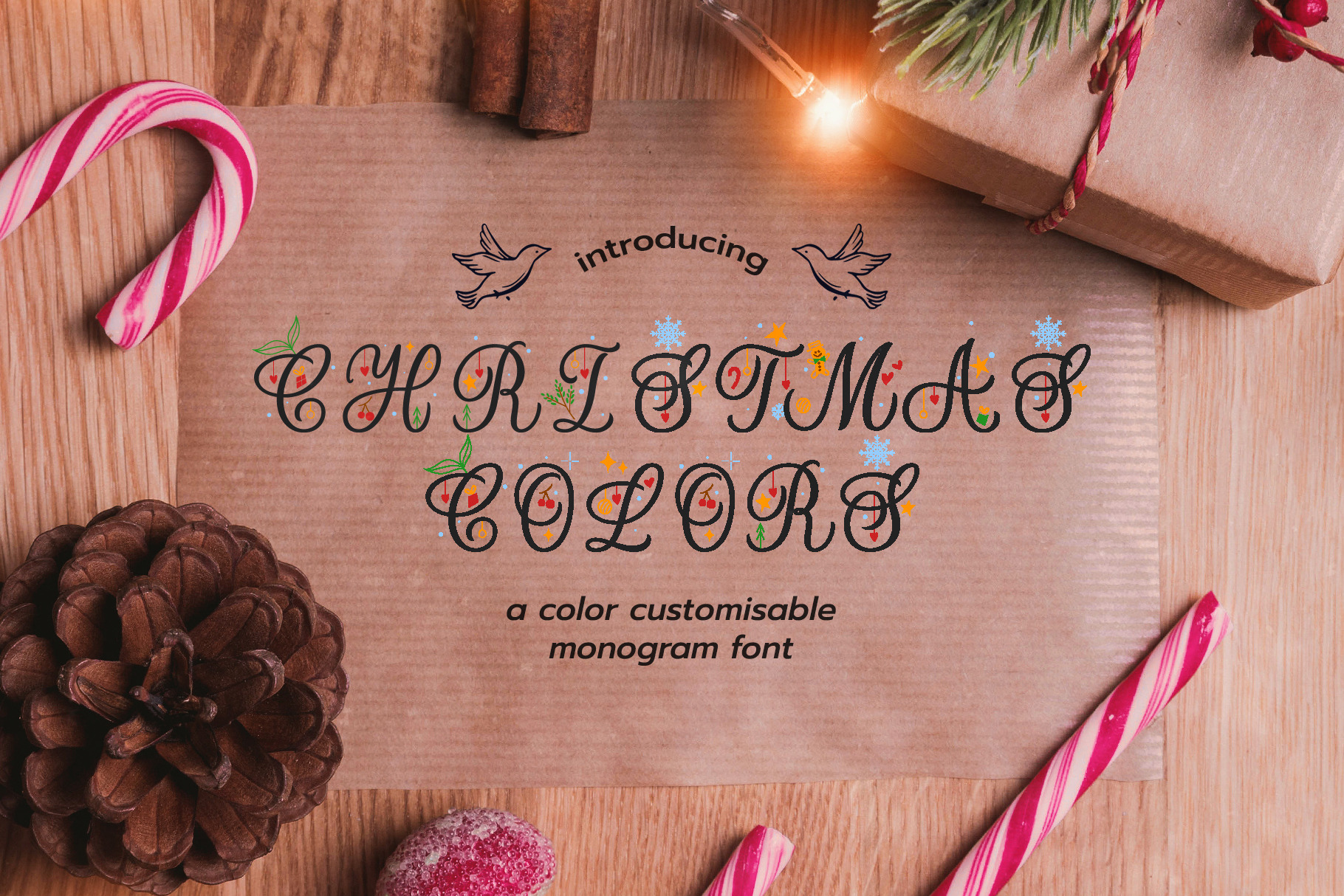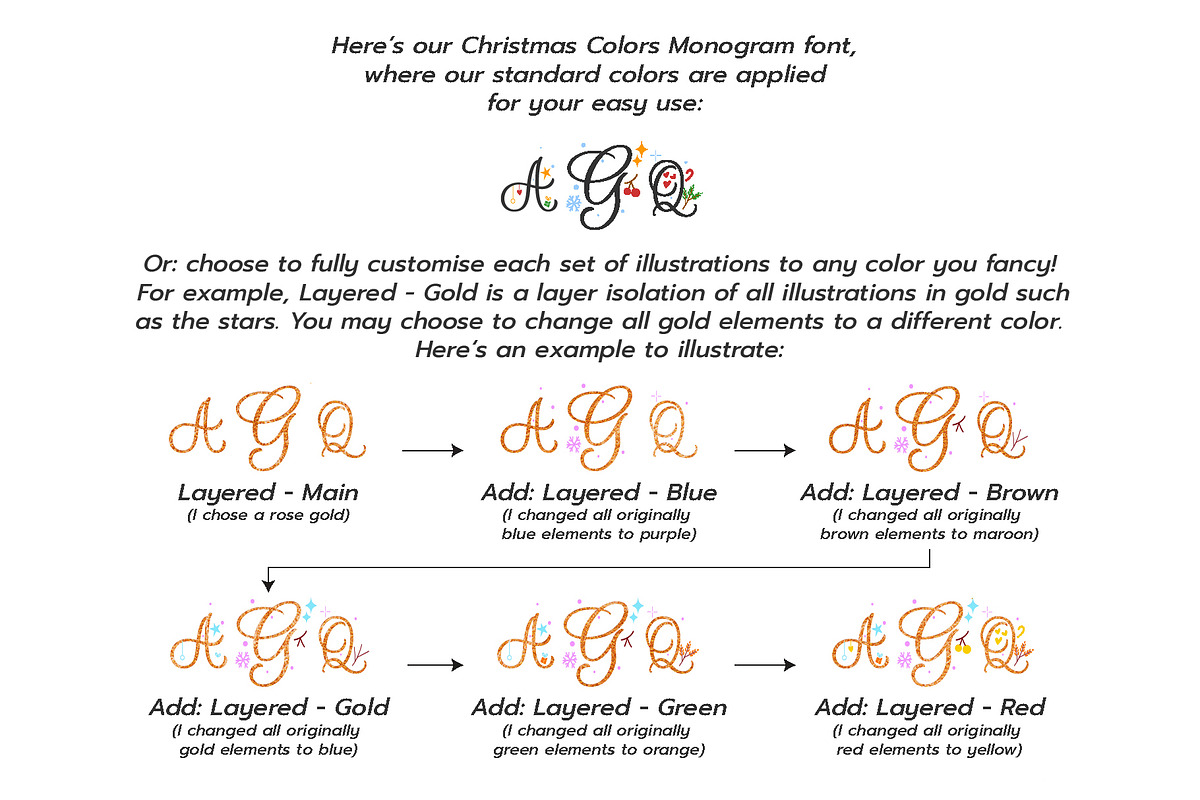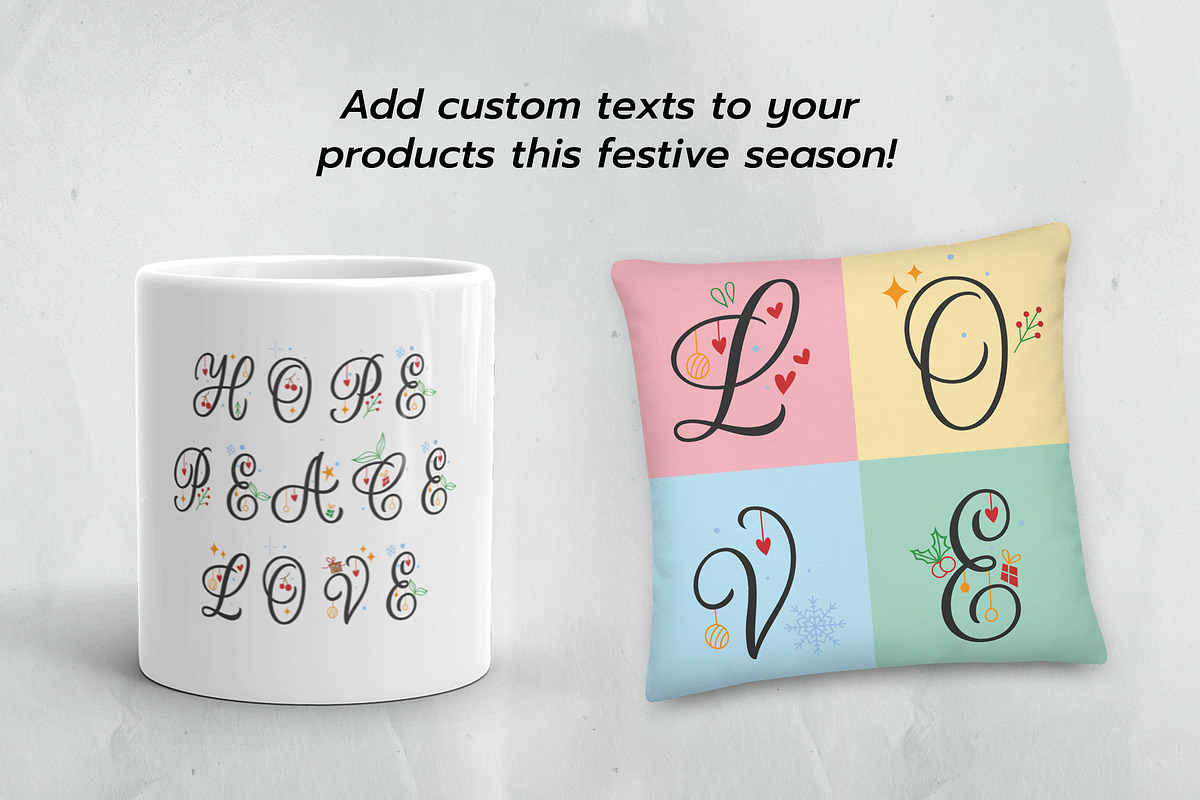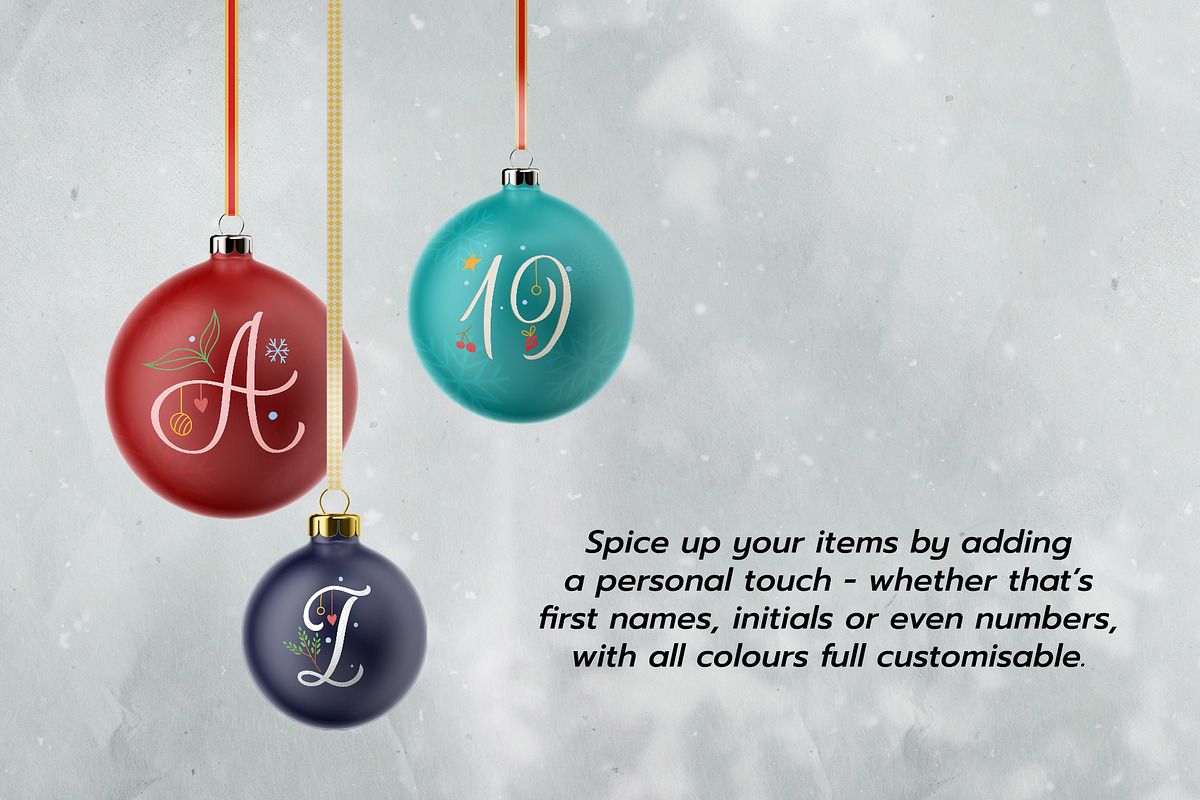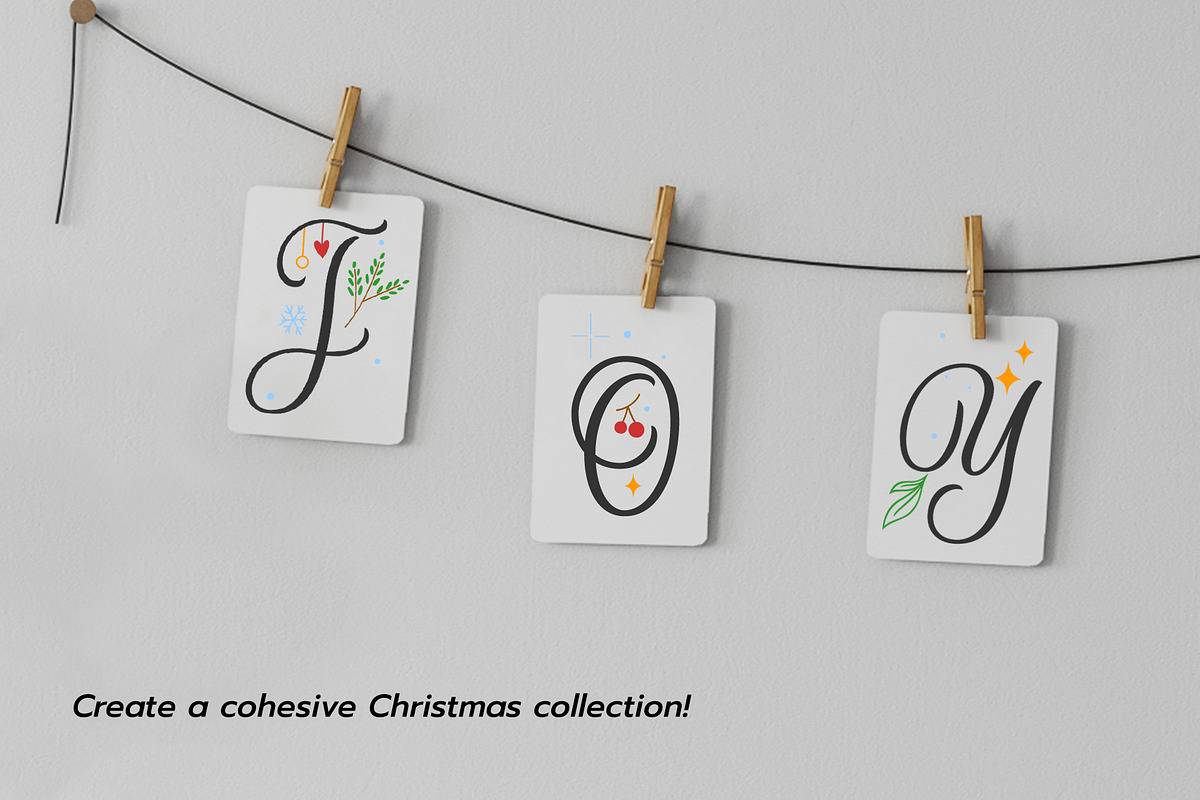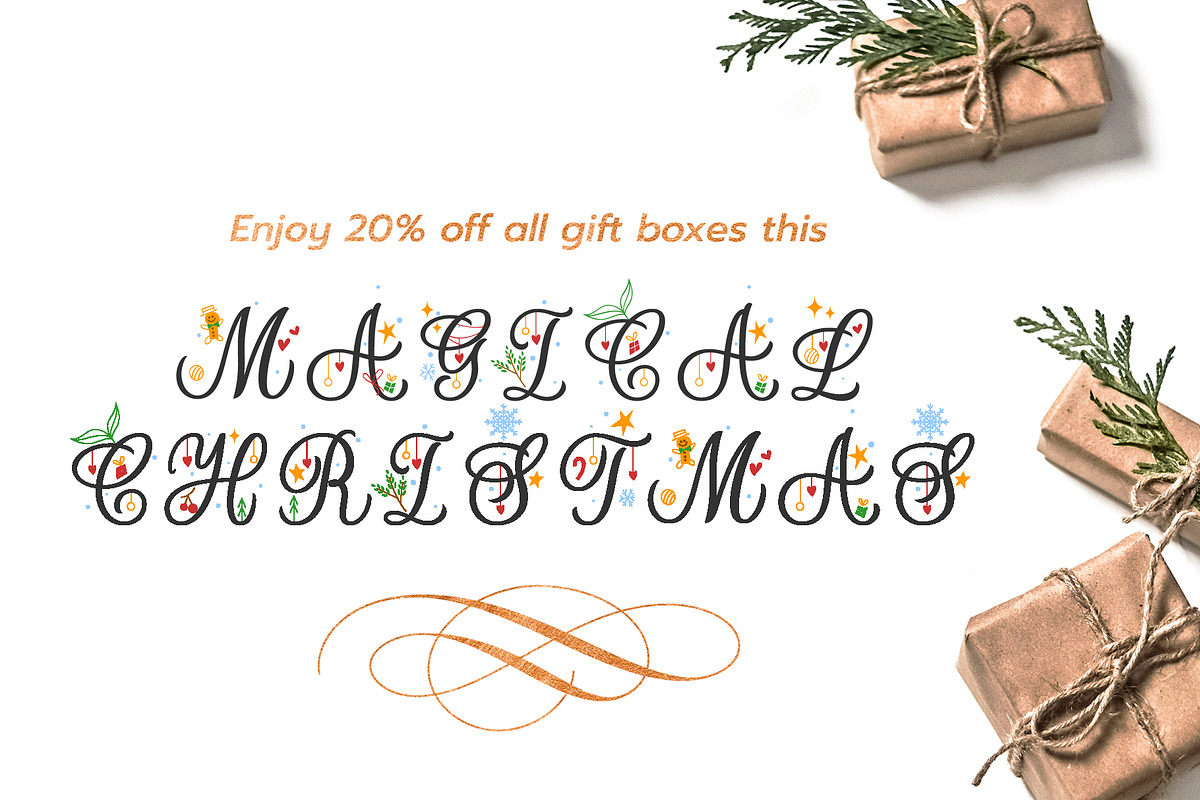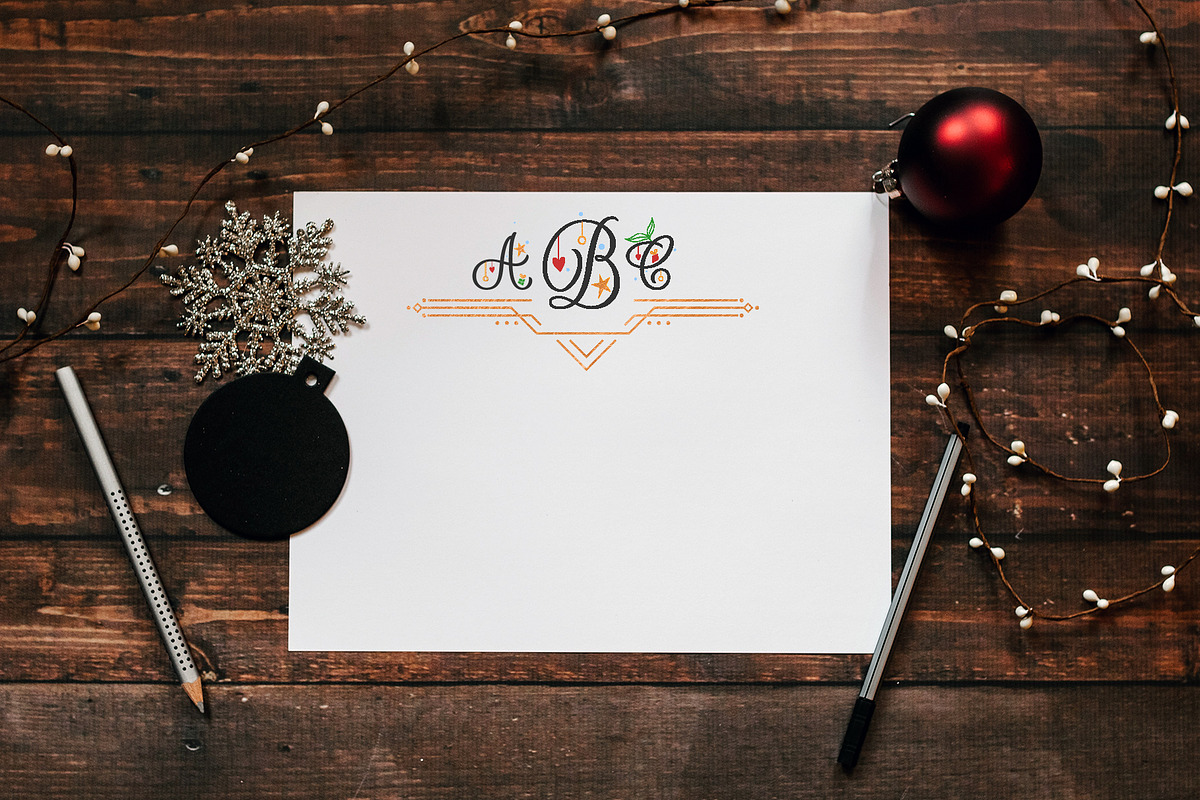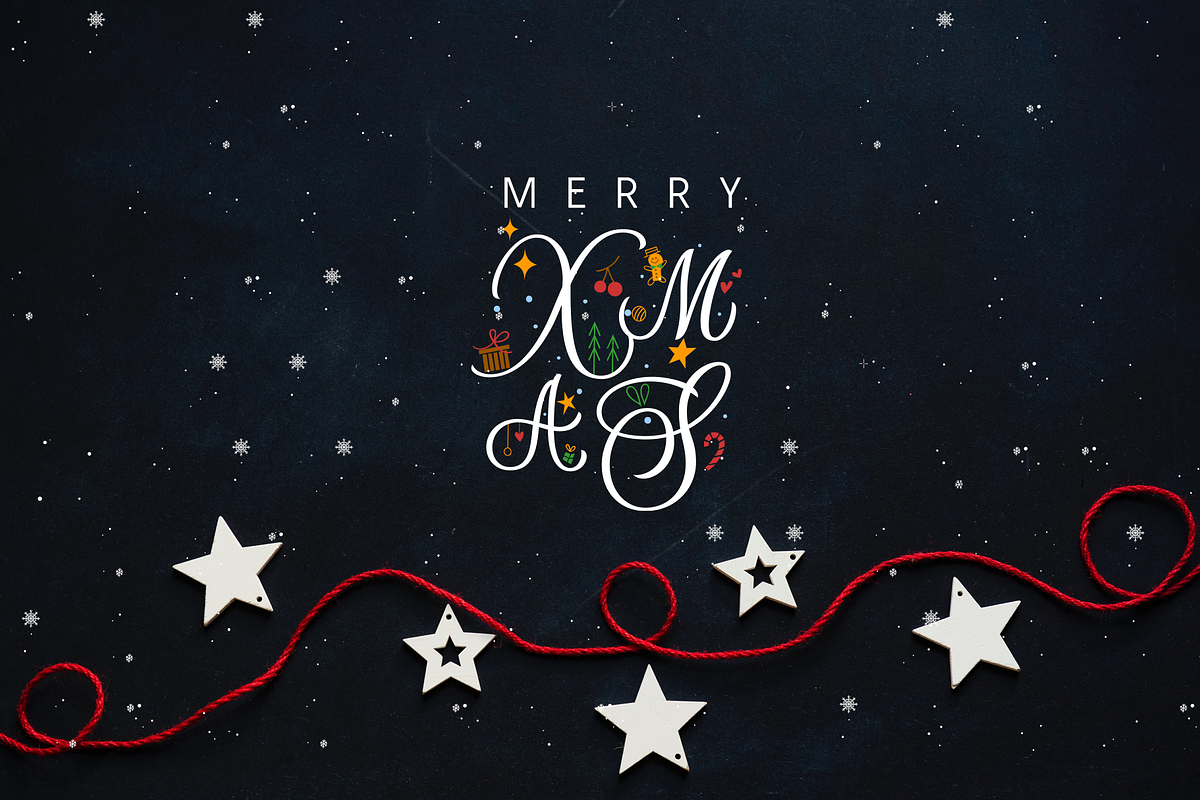
Christmas Colors Monogram Font
Introducing: Christmas Colors Monogram Font, a colour customisable monogram script font for the festive season! It features a Brush Lettering script with illustrative elements such as stars, snowflakes, botanical leaves, presents and many more.
Create stunning monograms and creative compositions for your design work - perfect for monogrammed notecards, products and gifts with an A-Z alphabet collection, Christmas advertisements, posters, Christmas merchandise and much more. All colors are fully customisable via our layered fonts too!
- Latin character set: Uppercase & Lowercase (Small Caps) A - Z
- Selected punctuations and ampersand